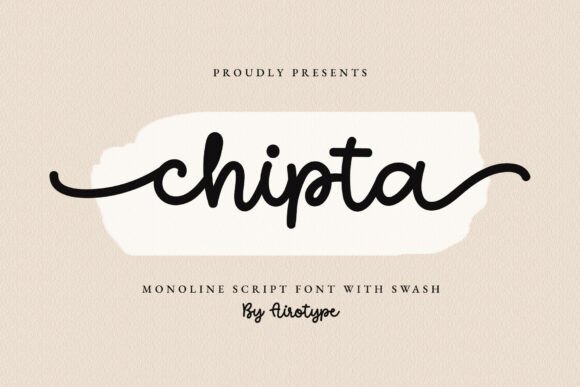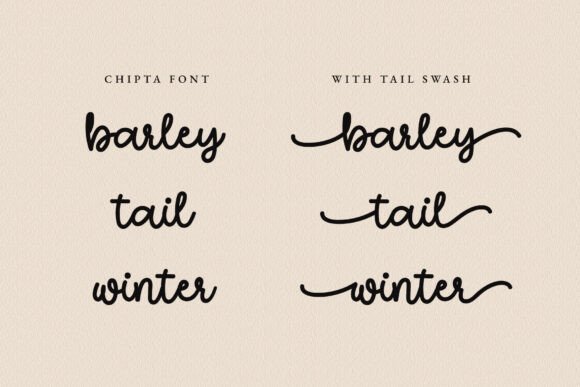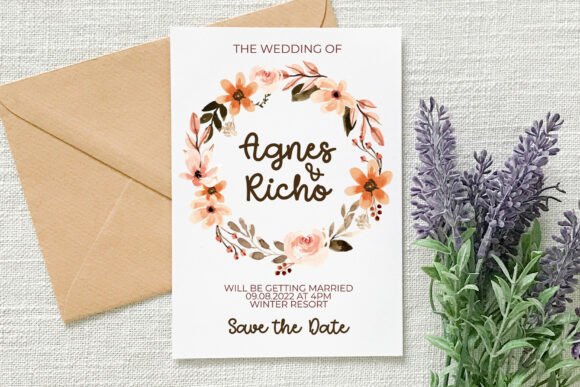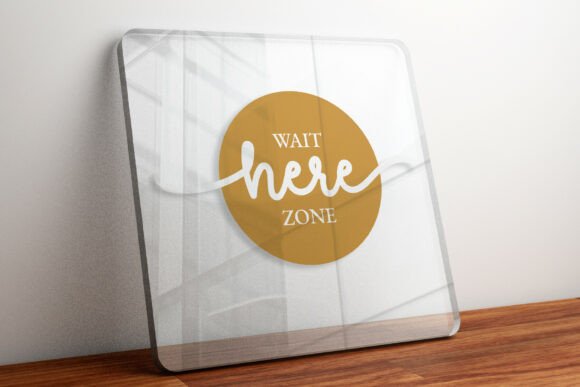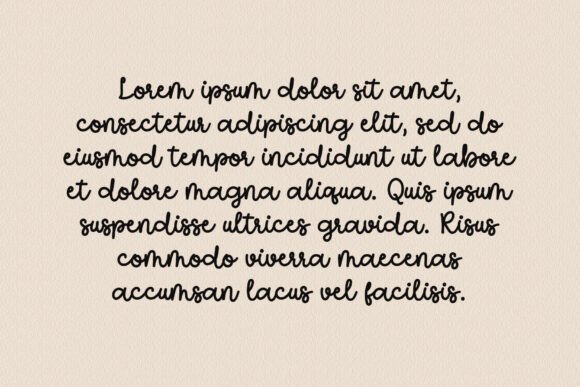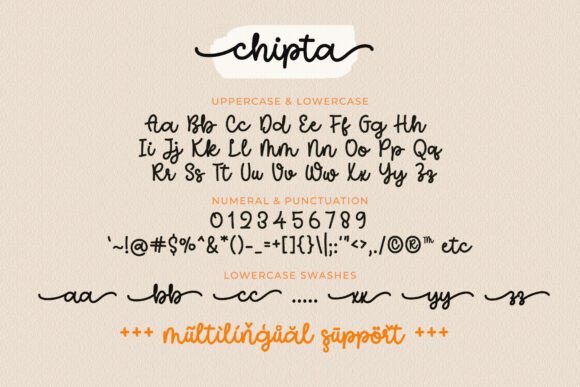
Chipta Font
Chipta is a smooth monoline script font with elegant swashes that add a stylish finishing touch. Its clean flow and modern handwritten feel make it perfect for logos, invitations, branding, packaging, quotes, and social media designs. Versatile and charming, Chipta combines simplicity with a touch of sophistication, making any project stand out beautifully.